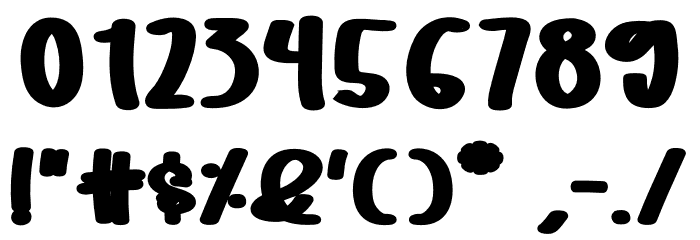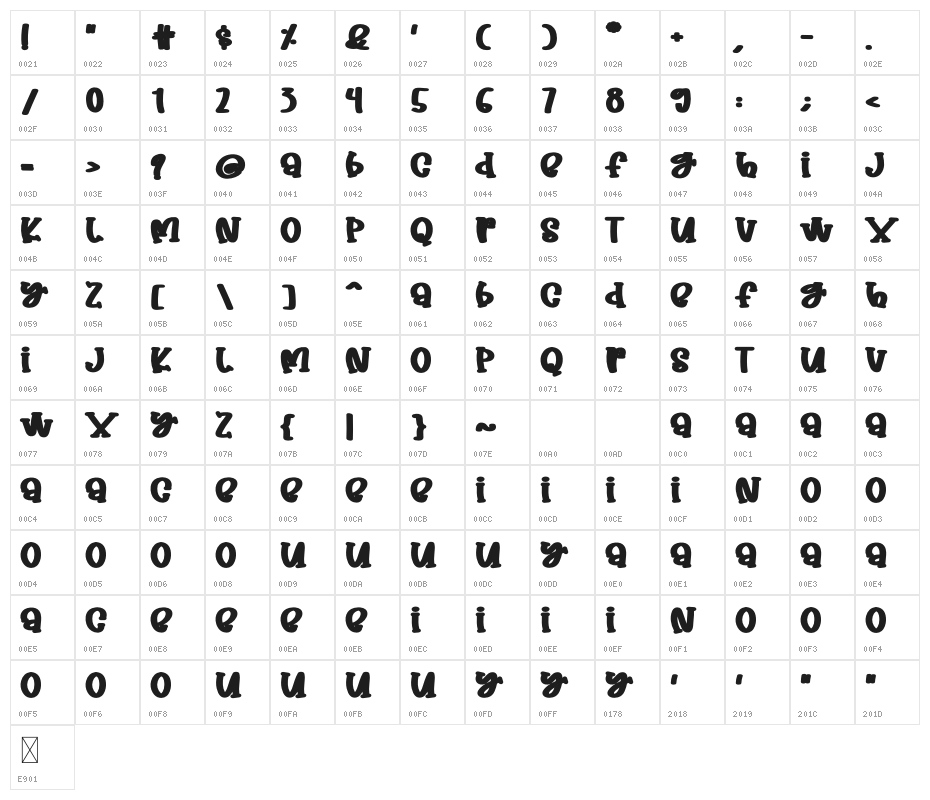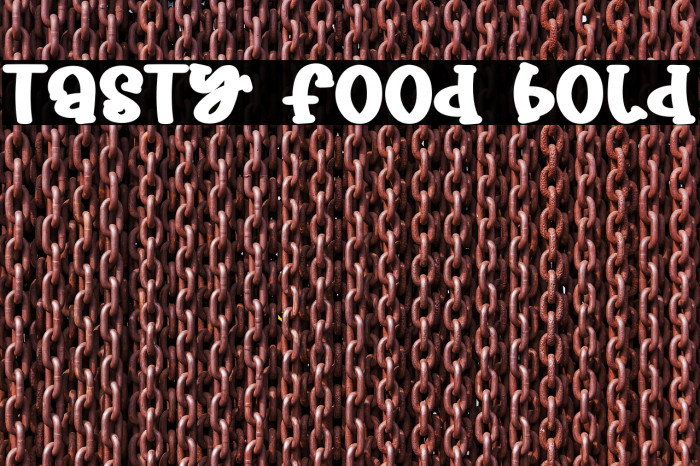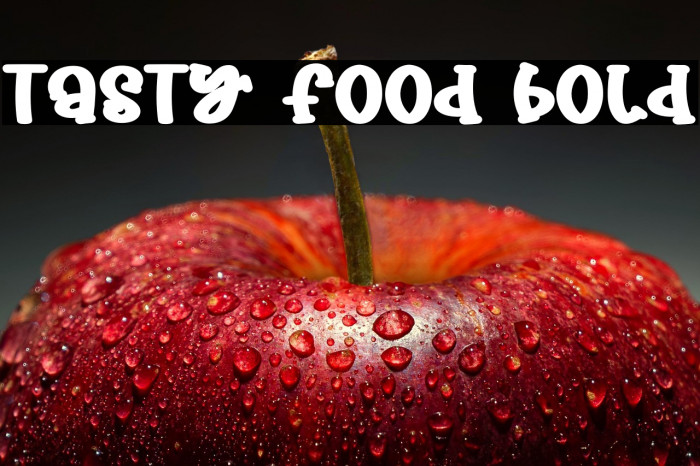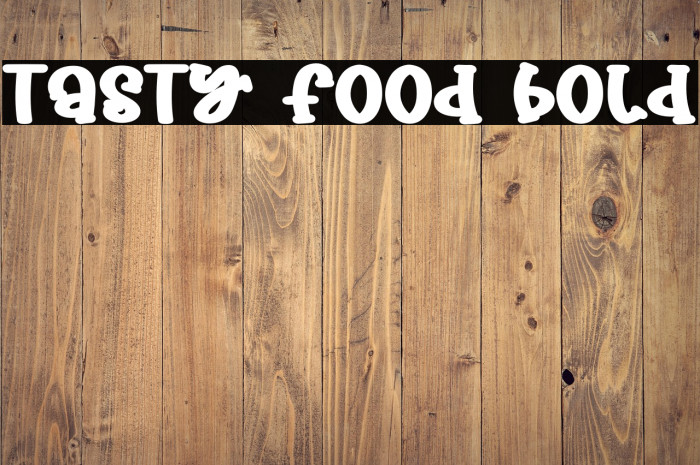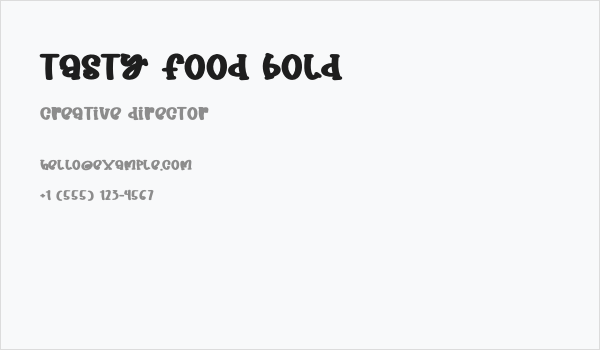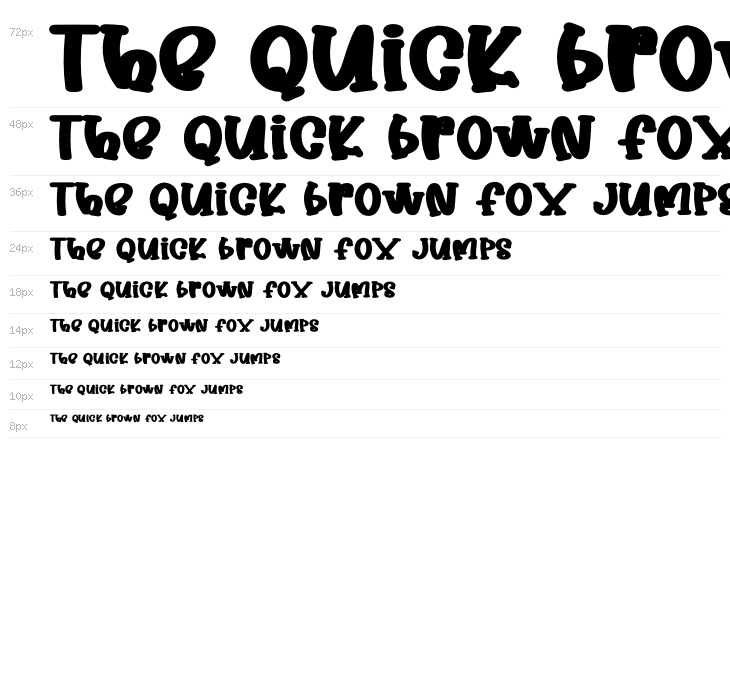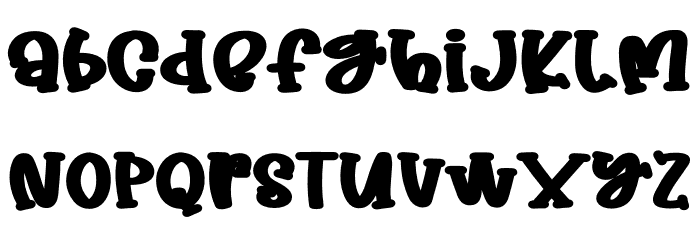
Tasty Food Bold Font
Tasty Food Bold Description
This font features a bold and playful style with a strong presence. The characters are rounded and have a whimsical, almost cartoon-like appearance, making them stand out with their thick strokes and exaggerated curves. The uppercase and lowercase letters maintain a consistent style, with a slight slant that adds a dynamic feel. The numbers are equally bold, ensuring they are easily readable. Special characters are designed to match the playful aesthetic, making them suitable for creative and informal contexts.
| Proposed Projects | Ideal for children's books, playful branding, posters, and creative social media graphics. |